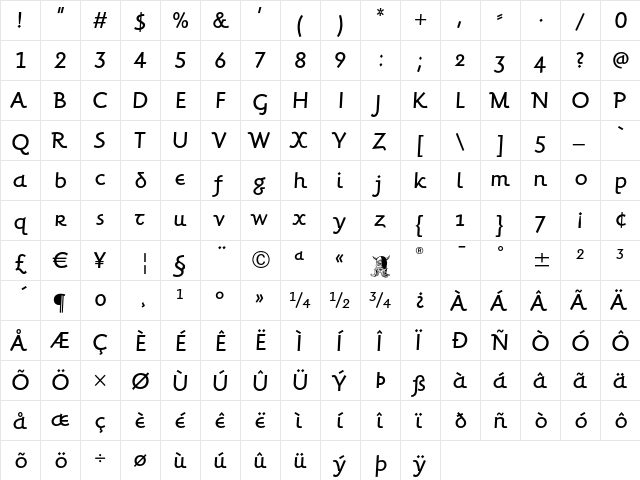
Forkbeard ITC Regular
Design Context for Forkbeard ITC Typeface
Forkbeard ITC offers clean, dependable letterforms without strong stylistic allegiance, making it a practical choice for designers who need flexibility.